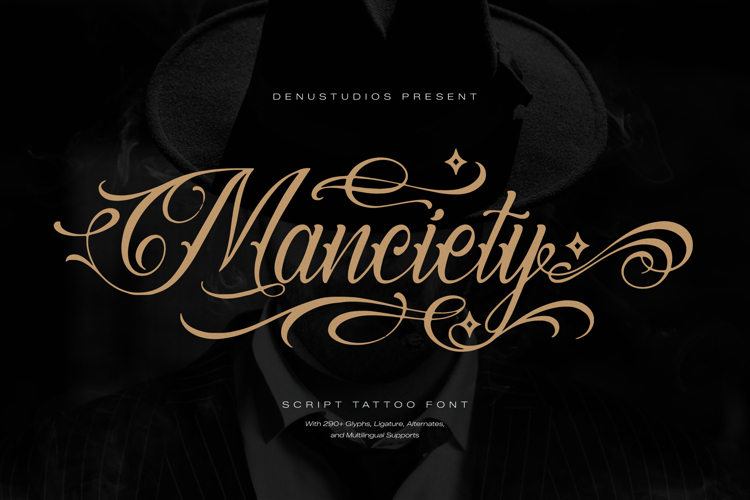
Manciety | Tattoo Script Font, from Denustudios, suitable for any projects such as: logos, branding projects, homeware designs, product packaging, mugs, quotes, posters, shopping bags, t-shirts, book covers, name card, invitation cards, greeting cards, label, photography, watermark, special events, and all your other lovely projects that need a Tattoo taste.